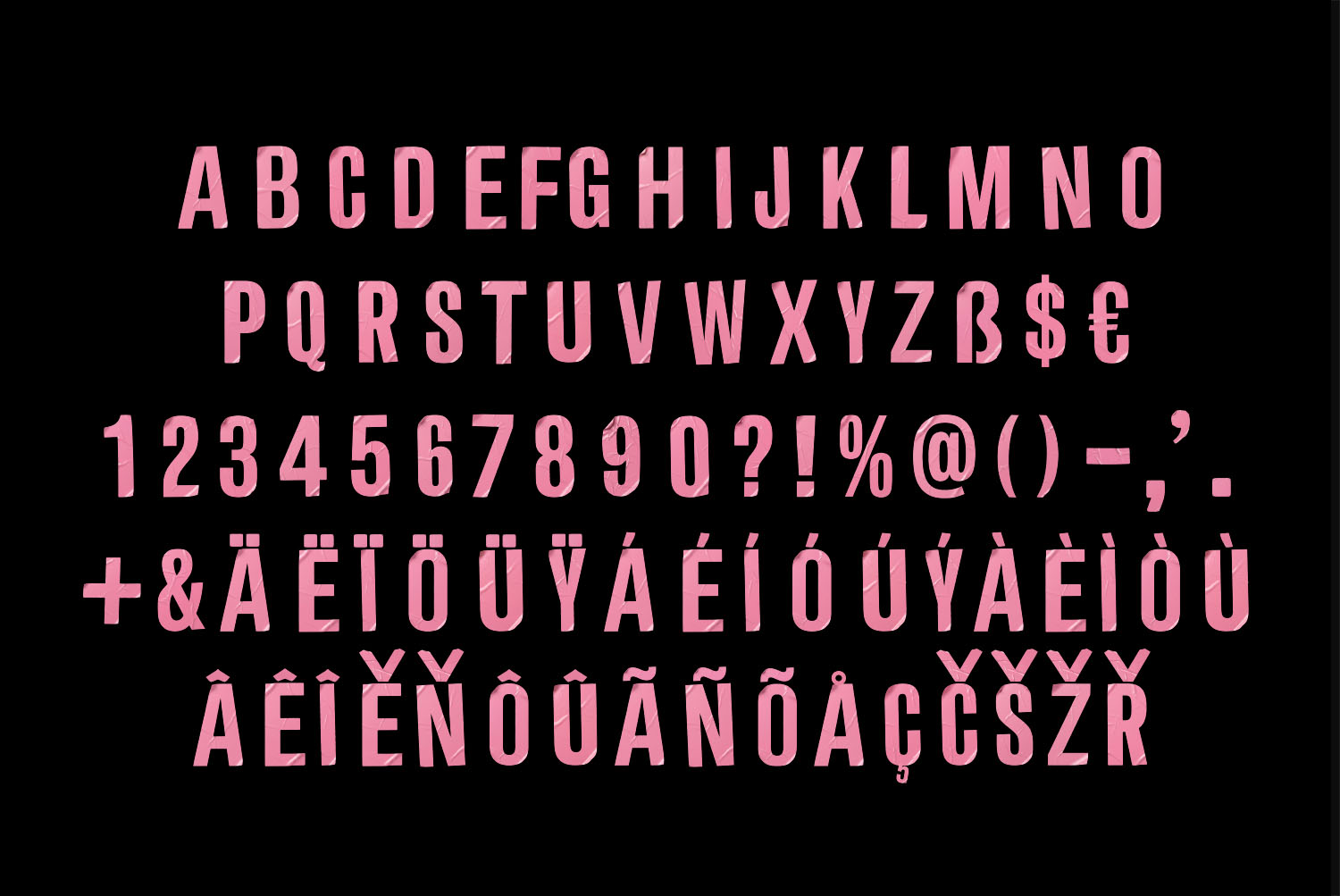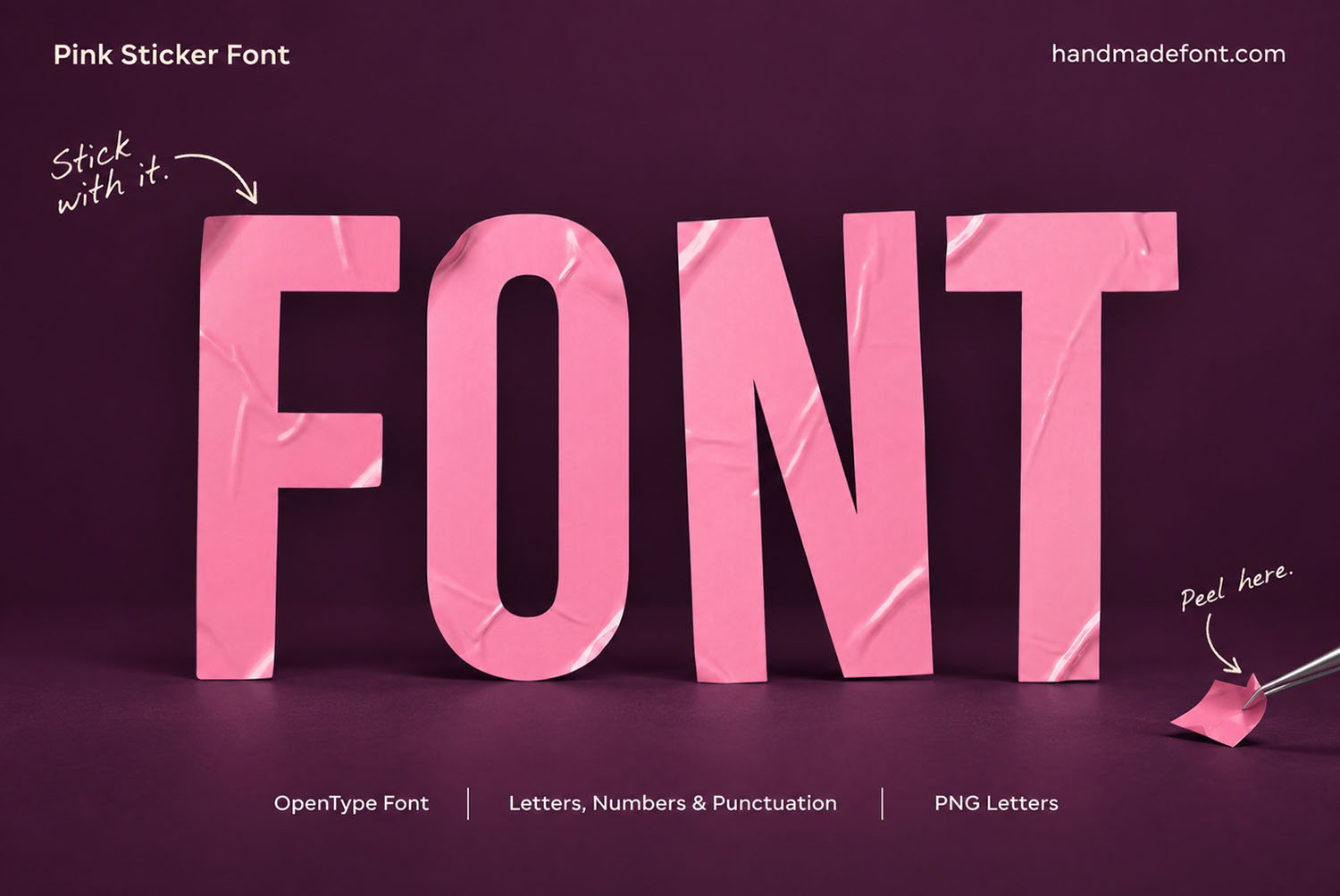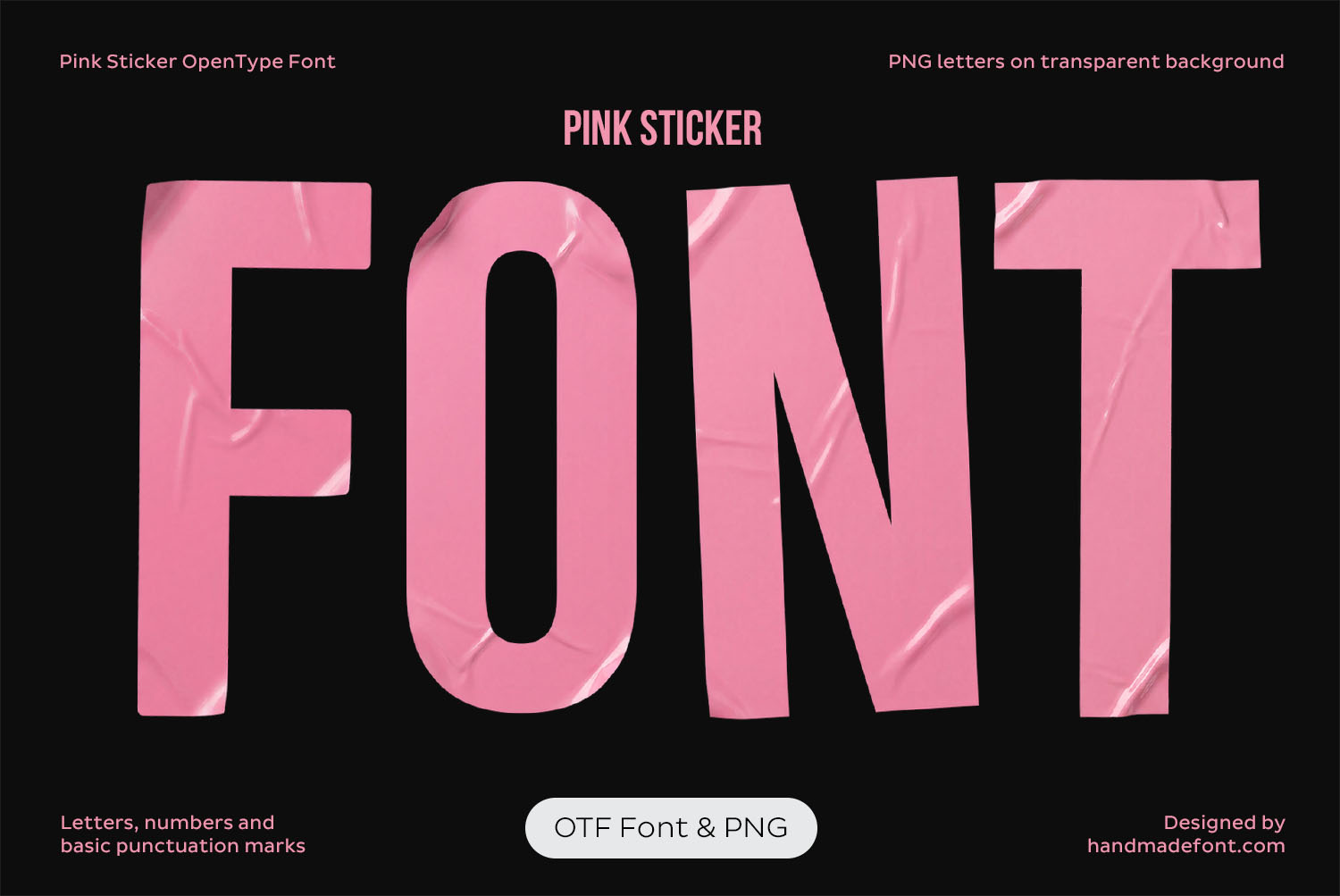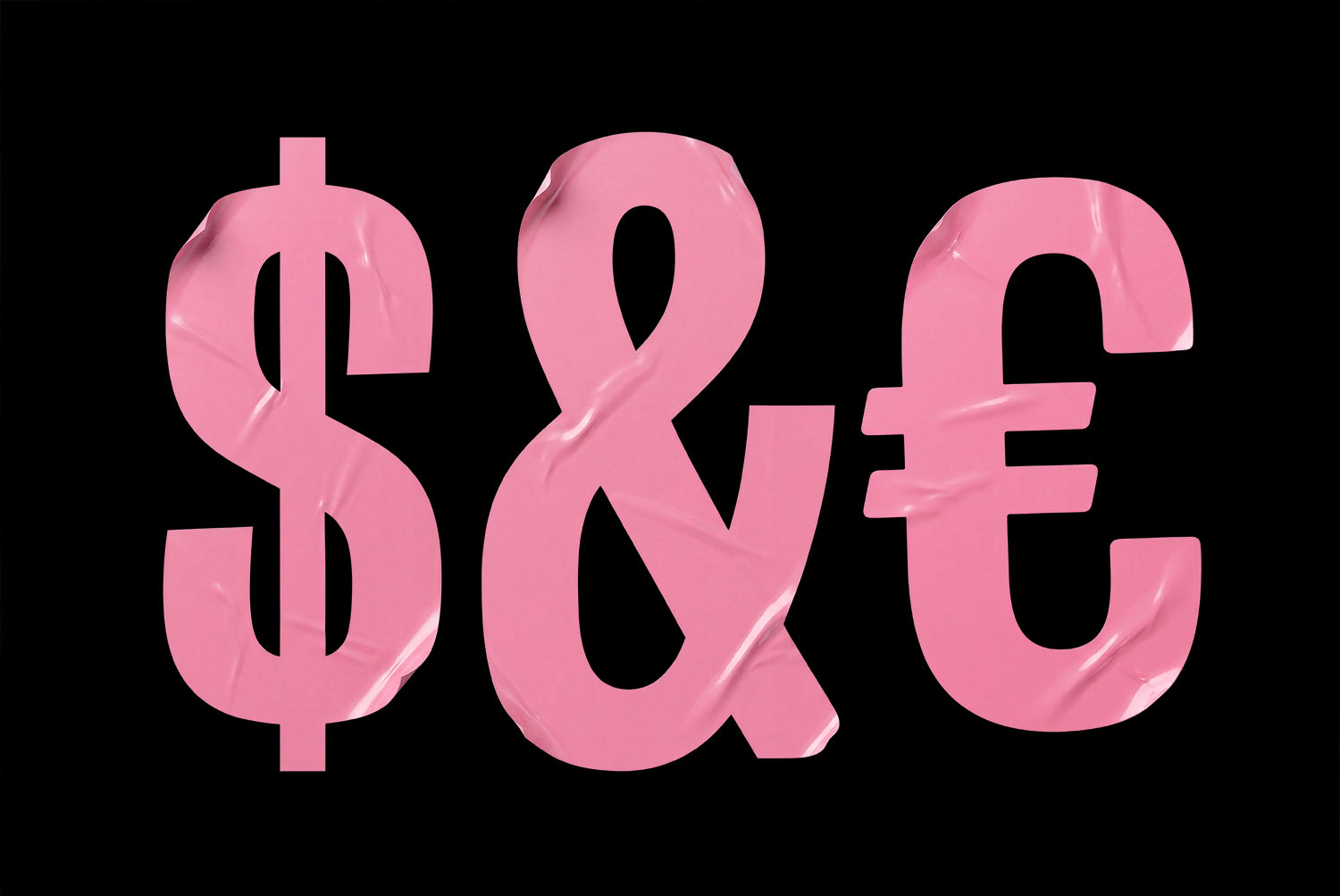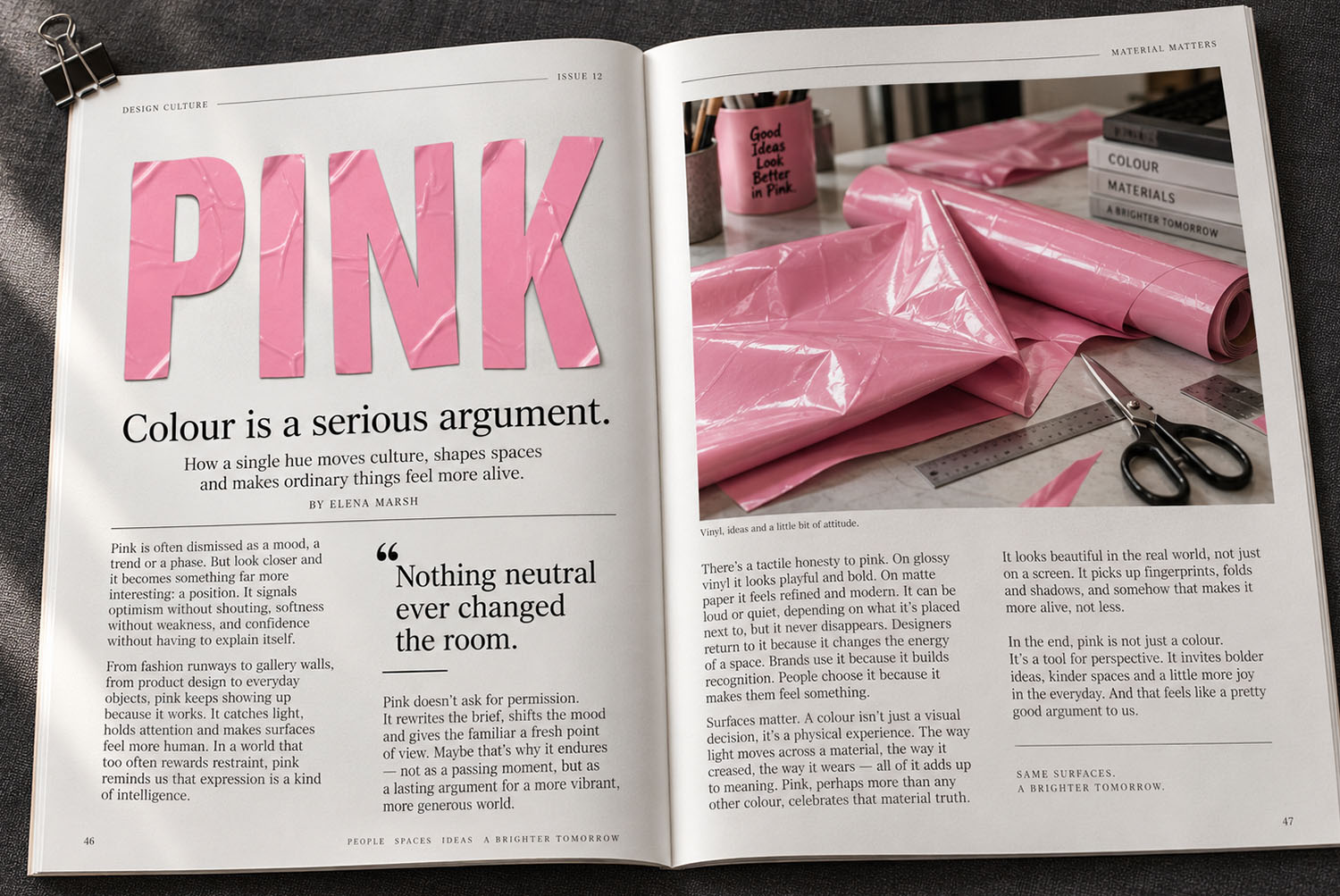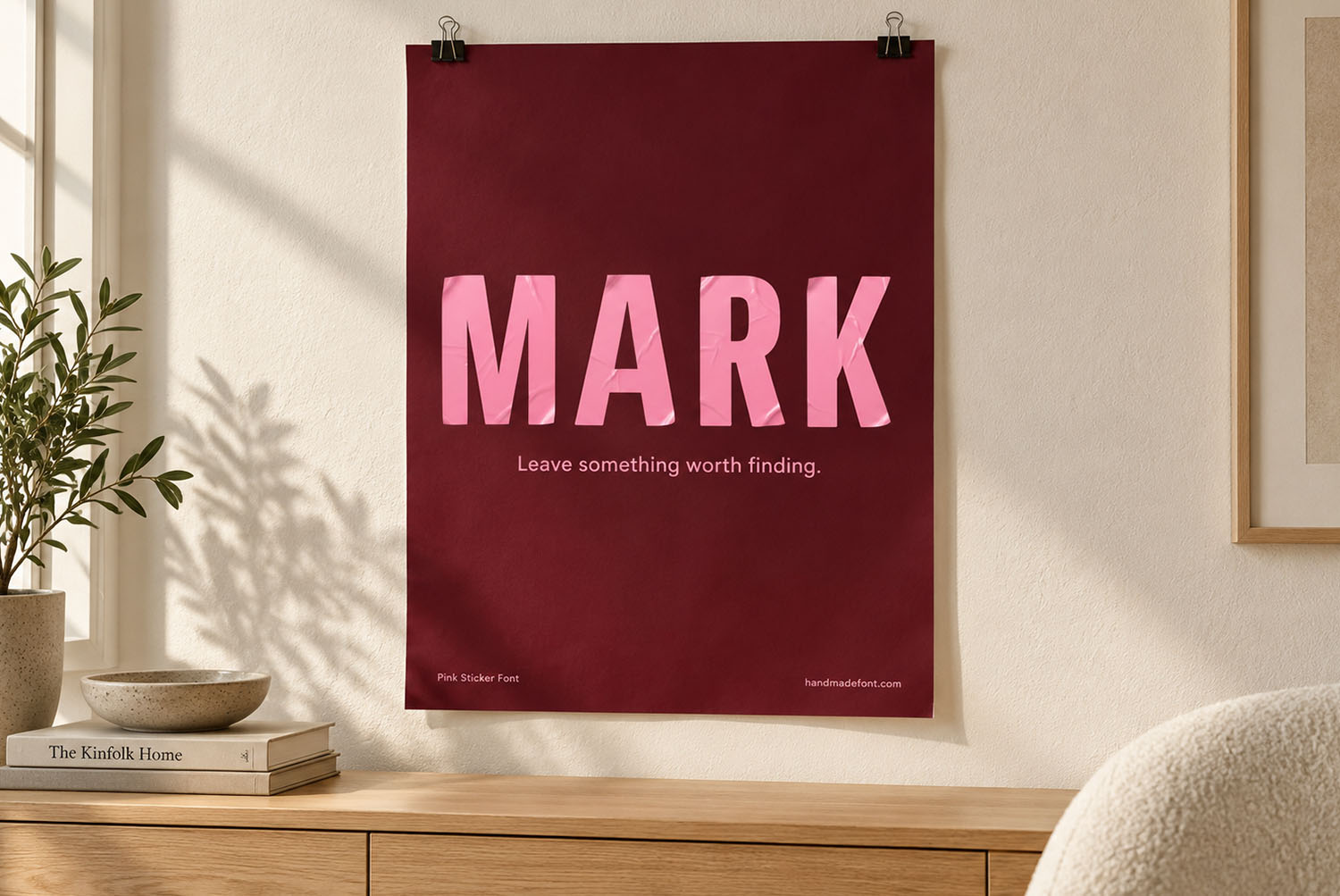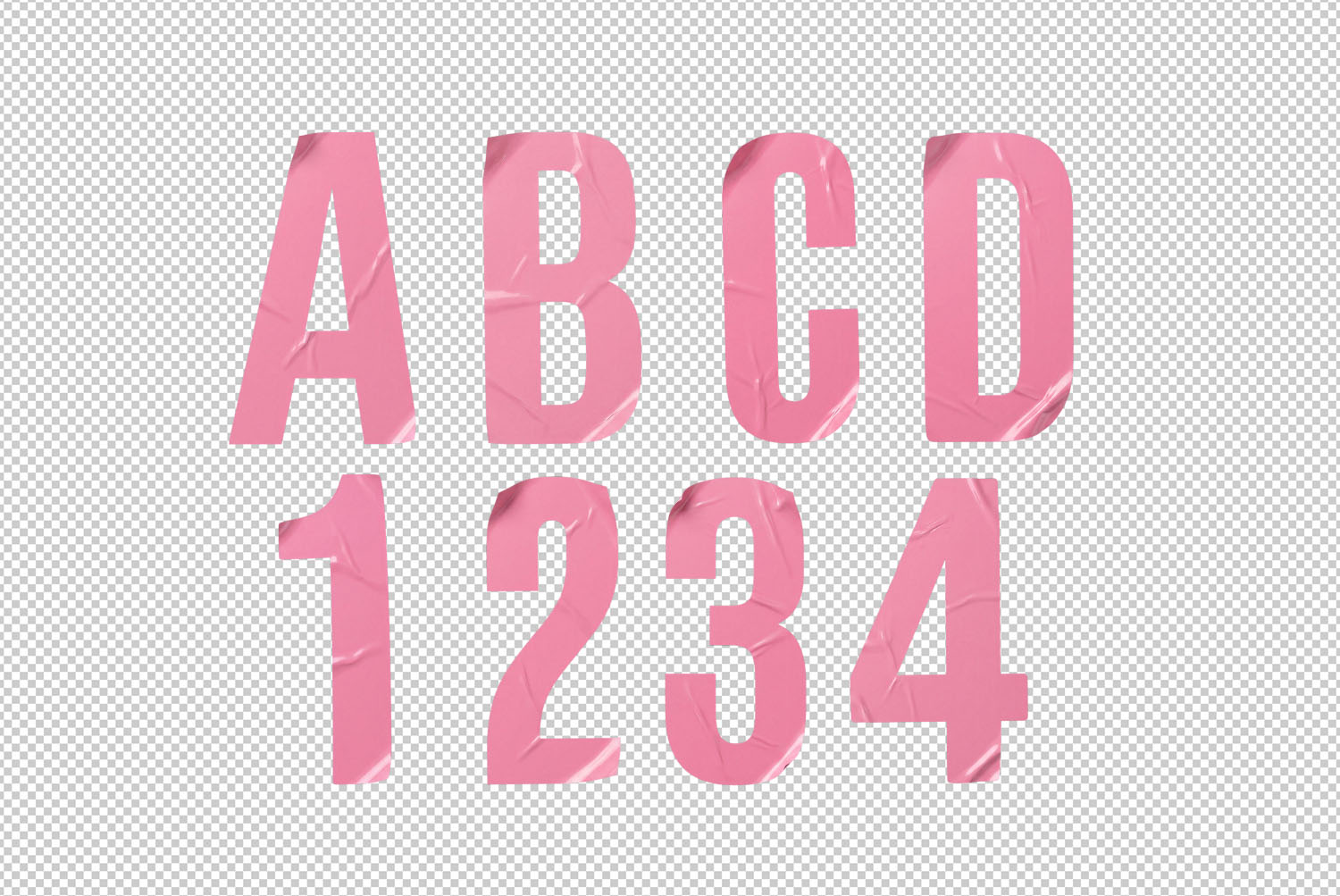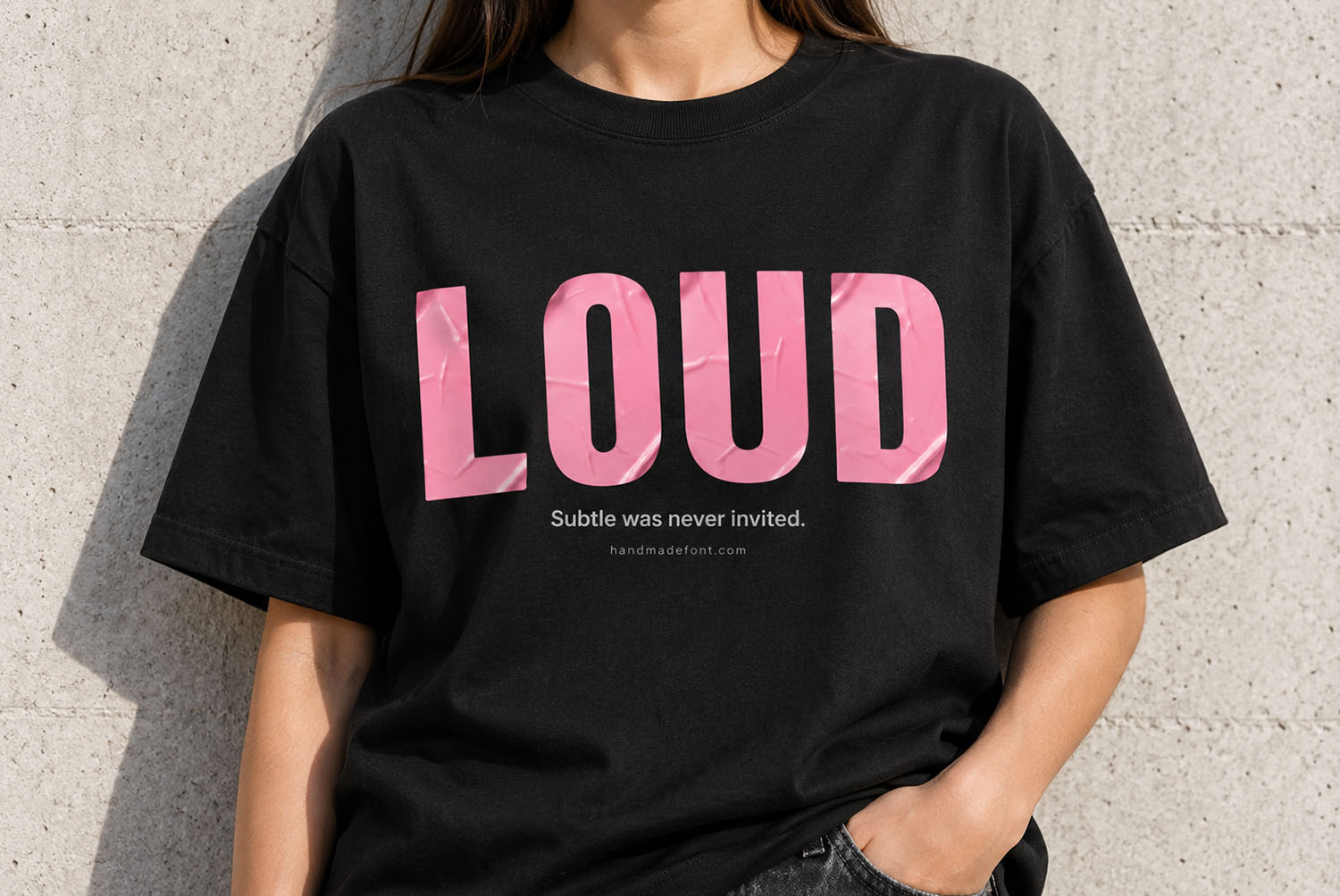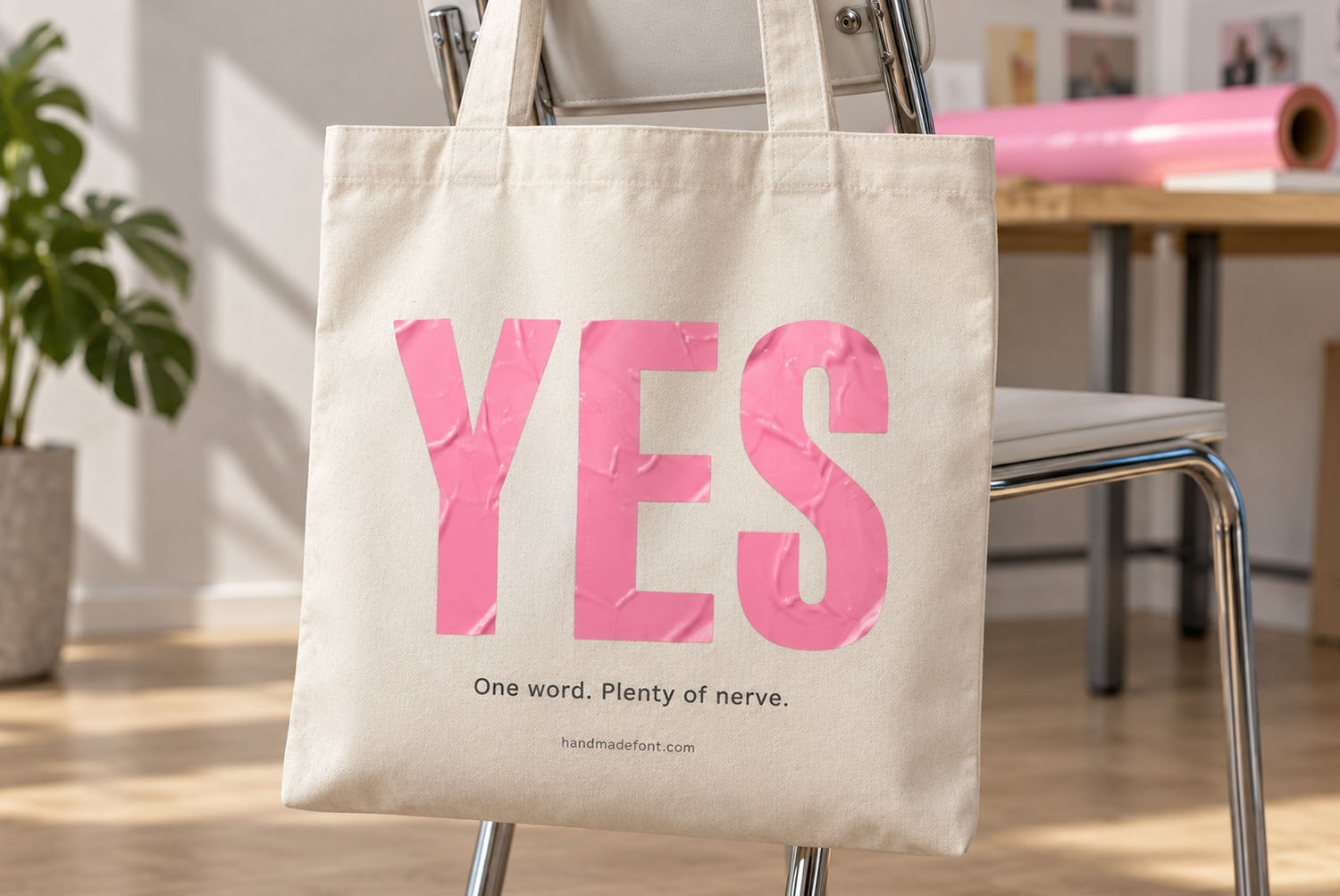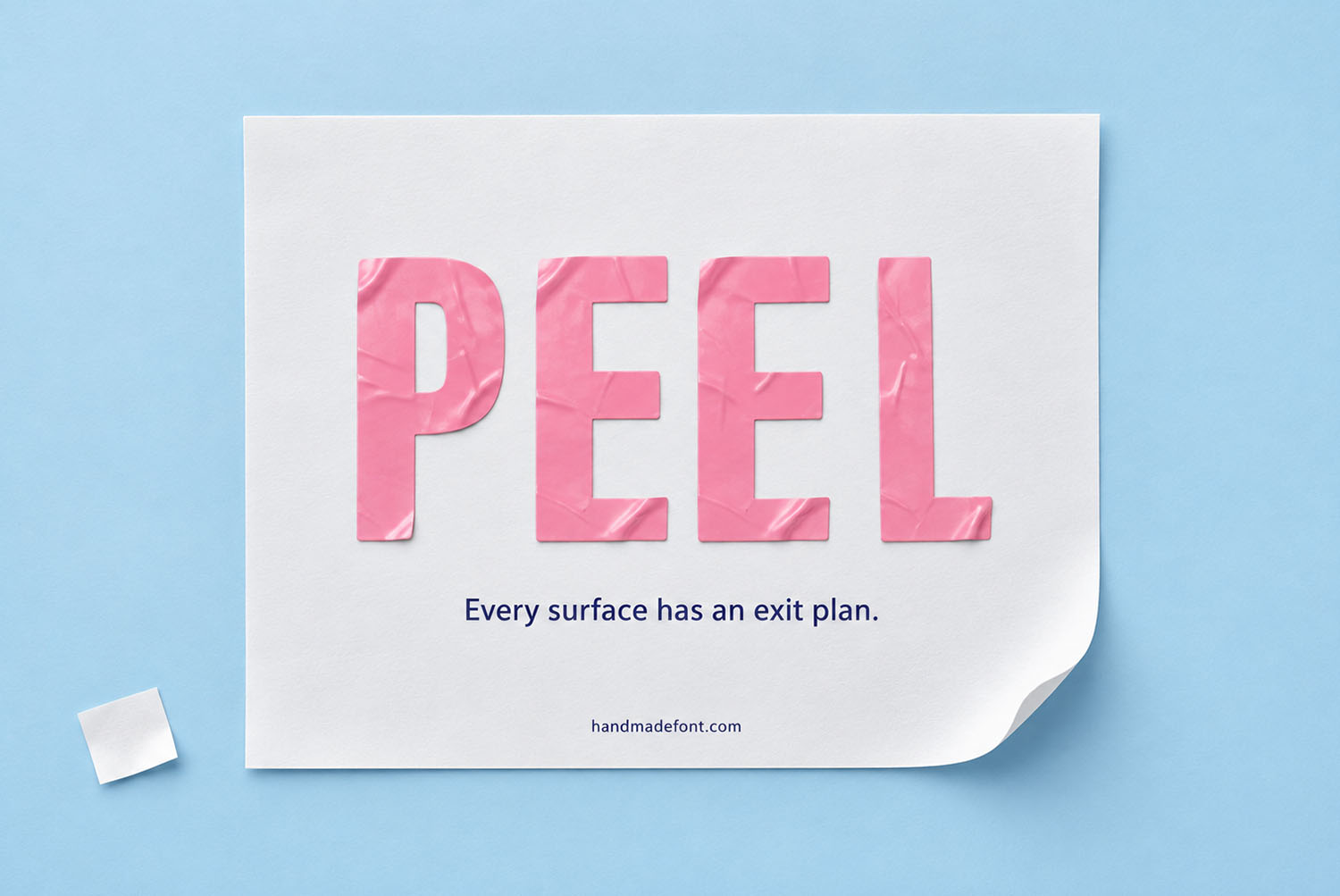
Pink Sticker Font. Glossy Vinyl Capitals That Peel
Pink Sticker Font is a fat run of capitals cut from glossy bubblegum vinyl and pressed on crooked. Creases cross the strokes, bubbles hide under the film, and a few corners have already started lifting. It suits posters, streetwear and shop windows. Uppercase only, plus numbers, punctuation and a long row of accents. Subtlety was never on the table.
Pink Sticker Font Went Up Crooked and Stayed That Way
Somebody pressed these capitals onto a wall in a hurry, so every letter kept the evidence. Creases run diagonally across the wide strokes, while tiny bubbles hide under the film where a squeegee missed. Corners lift on a few glyphs, because vinyl never lies flat for long. Pink Sticker Font shouts bubblegum rather than dusty rose, though the gloss keeps it from turning sweet. Above all, a soft shadow puts each letter on top of the surface instead of inside it.
Heavy Grotesque Bones Under the Crumpled Film
Under the texture sits a fat condensed grotesque, so the alphabet holds its shape on a poster and in a thumbnail alike. Stems run thick and vertical, while the counters in O, P and R stay open enough to survive a shrink. Numbers, currency signs and a long row of accents match the same build, therefore European headlines set without gaps. Some glyphs wrinkle harder than others, since one sheet of vinyl never behaves twice in a row.
Animated letter S of the Pink Sticker Font peeling off a dotted grey background
Where the Pink Sticker Font Earns Its Keep
Loudness is the entire point here, so quiet layouts should look elsewhere. Streetwear graphics, gig posters, zine covers and cosmetics packaging all take it well, because each one wants a word that arrives before the picture does. Shop windows suit it too, since the letters already read as something stuck to glass. The mockups here run it across a tote bag, a magazine spread and a black tee, where the pink does the shouting on its own. Meanwhile one word usually beats a whole sentence in a quieter face.
Cover of the Pink Sticker Font showing the word FONT in glossy pink vinyl capitals on black
Full character set of the Pink Sticker Font with capitals, numerals and accents on black
Dollar sign, ampersand and euro sign of the Pink Sticker Font in creased pink vinyl
Open magazine spread with the word PINK set in the Pink Sticker Font
The word WOW in the Pink Sticker Font on a cream wall beside small star stickers
Canvas tote bag carrying the word YES in the Pink Sticker Font
Shop window graphic reading STICK in the Pink Sticker Font
Dark red wall poster with the word MARK set in the Pink Sticker Font
Black t-shirt printed with the word LOUD in the Pink Sticker Font
The word PEEL in the Pink Sticker Font on a curling white sheet over pale blue
The word MORE in the Pink Sticker Font against a deep burgundy background
The word STUCK in the Pink Sticker Font on a matte black wall
The word NOPE in the Pink Sticker Font on a lilac background with a lifted corner
Transparent PNG letters and numerals of the Pink Sticker Font on a checkered background
Second cover of the Pink Sticker Font with the word FONT on a purple background